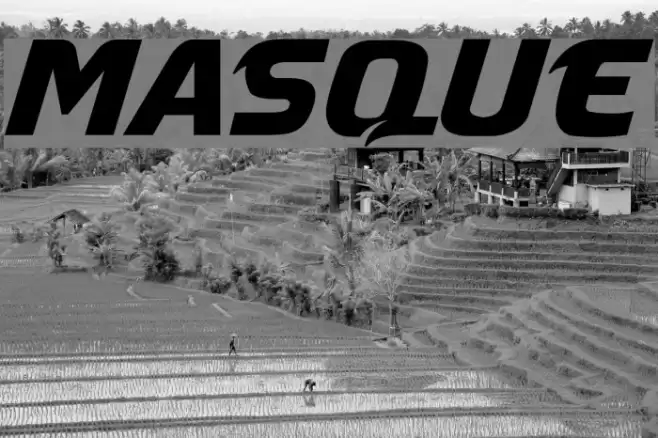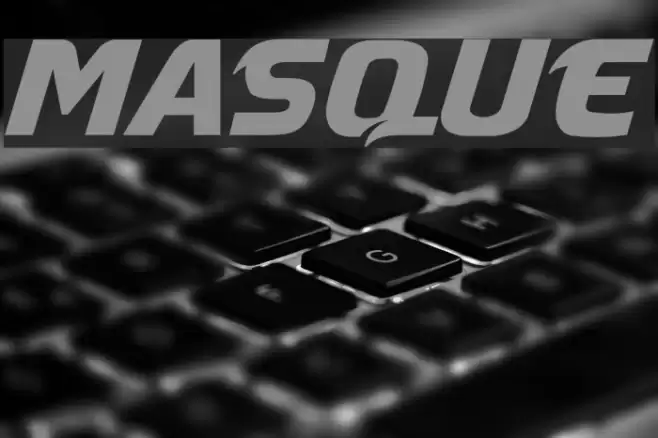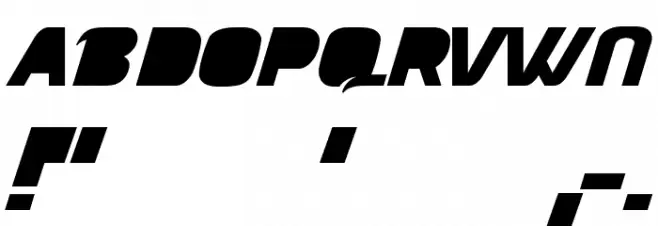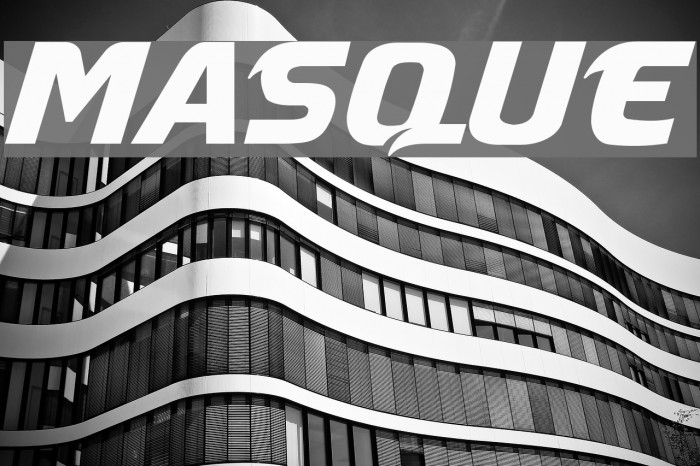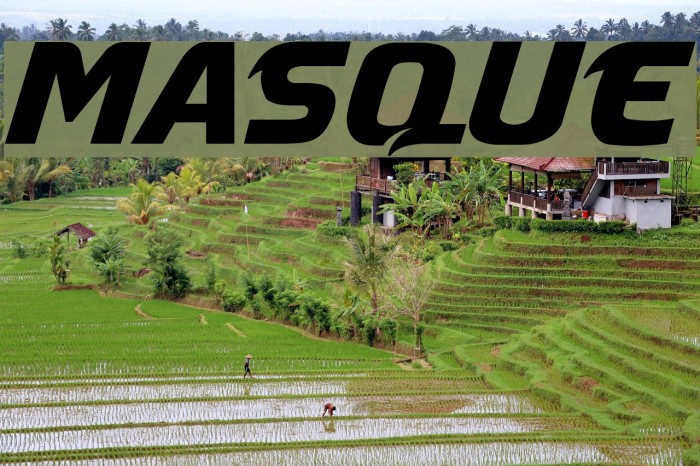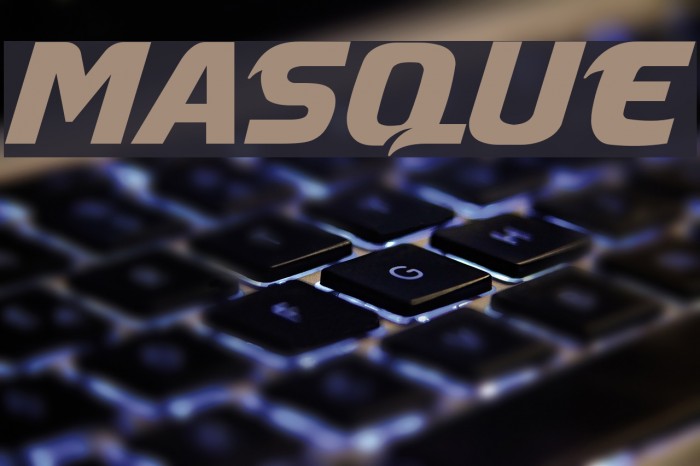
Masque Font
Masque Description
This font features a bold and dynamic style with a forward-leaning italicized appearance. The characters are designed with sharp angles and a sense of motion, creating a sense of speed and modernity. The uppercase letters are particularly striking, with unique cuts and curves that add to the overall energetic feel. The lowercase letters maintain this dynamic style, ensuring consistency across text. The numbers and special characters are equally bold, making them stand out effectively. This font is well-suited for projects that require a strong, impactful visual presence.
A bold, italicized font with sharp angles and a dynamic, modern style from Decorative fonts.
- Proposed Projects: Ideal for sports branding, automotive advertisements, dynamic posters, and modern digital interfaces.